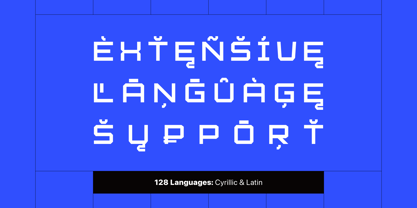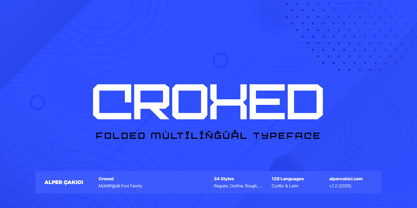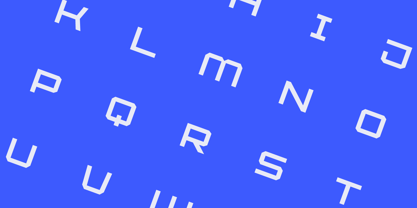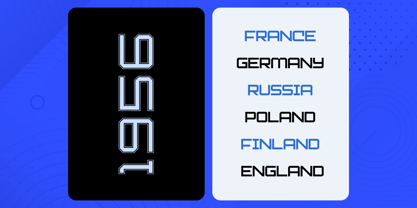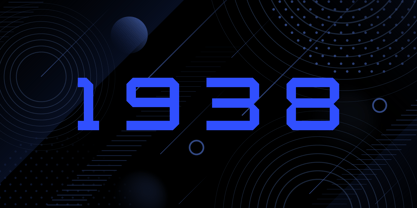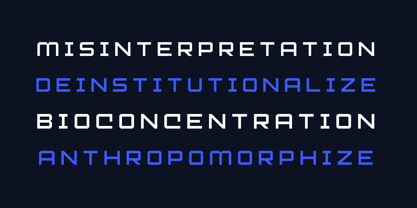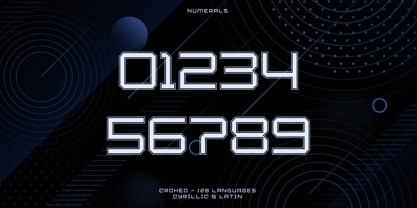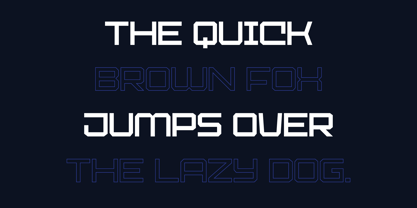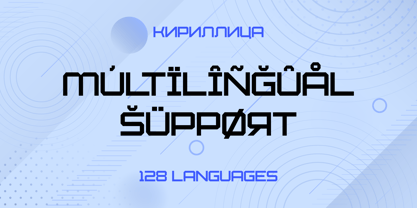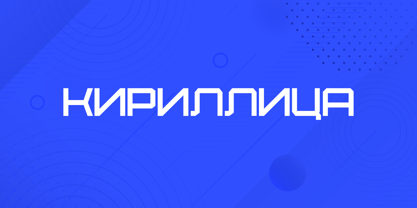
Croxed
by AlperCakici
The Croxed Font Family was designed by Alper Çakıcı and published by AlperCakici. Croxed contains 34 styles and family package options. More about this family
Croxed is a striking folded-style font family designed to bring bold personality and modern structure to any creative project. Its unique geometric folds create a smooth balance between sharpness and elegance, giving every word a memorable and expressive look. With full Cyrillic support and compatibility across 128 languages, Croxed is crafted for global designers who need versatility without losing visual impact. Perfect for branding, editorial layouts, packaging, posters, social media graphics, UI design, and high-impact display typography, this font family stands out effortlessly. Croxed delivers clarity, confidence, and creative flair in every glyph—making it an essential toolkit addition for designers who want something modern, stylish, and unmistakably unique.
Designers: Alper Çakıcı
Foundry: AlperCakici